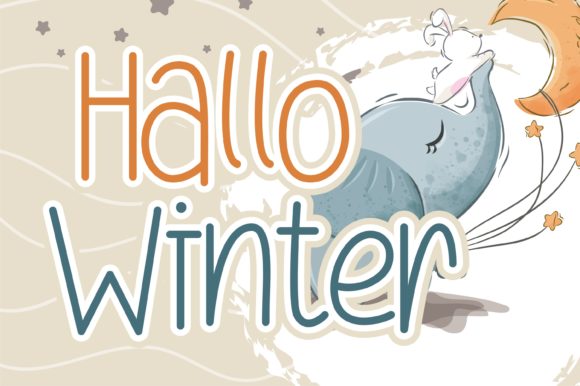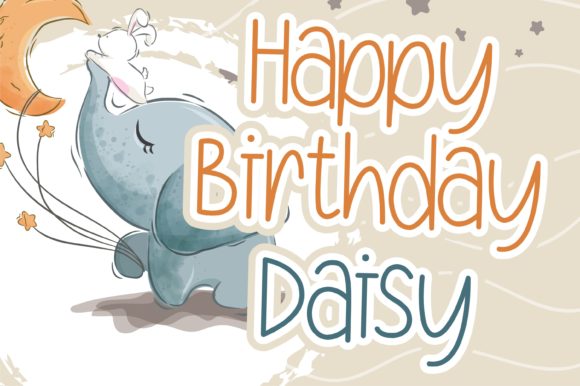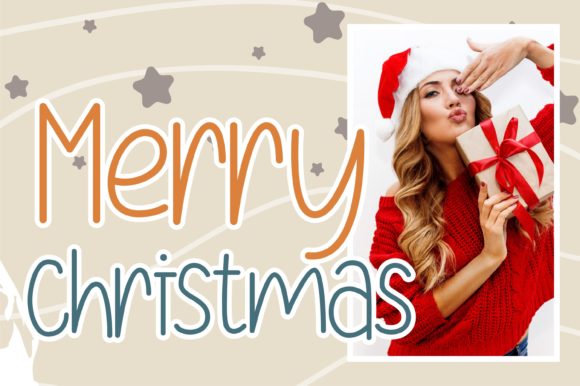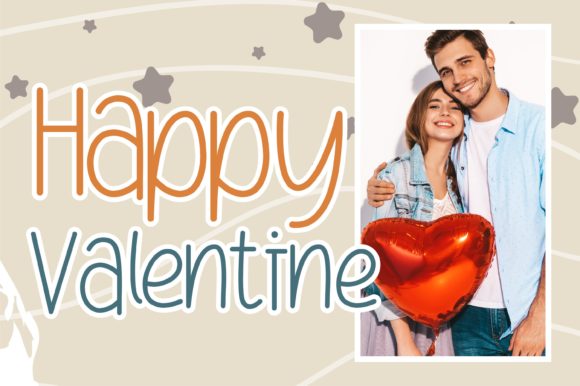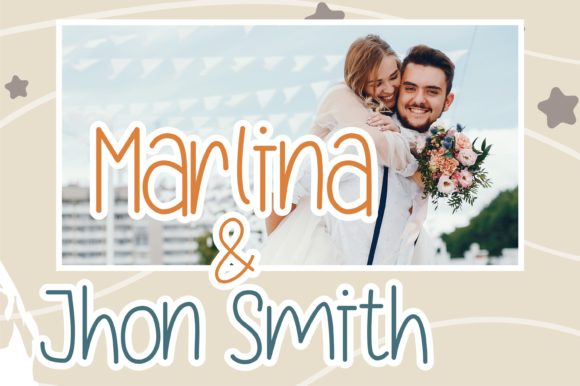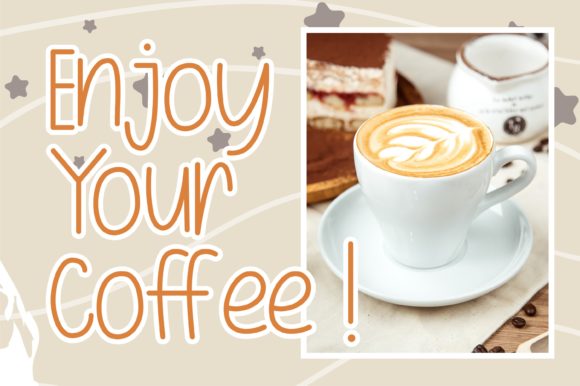
Introduction to Daisy Dream Font
Daisy Dream is a simple and natural handwritten font.
Modern and trendy, this font will complement each of your designs .